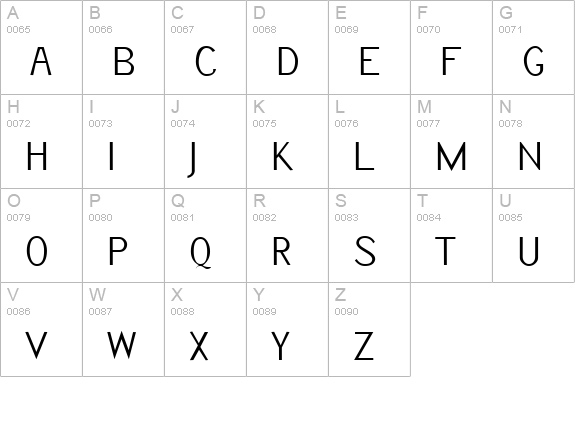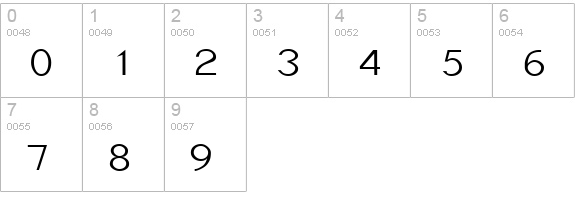
Paresis Font Details
Paresis font is a mesmerizing display font that effortlessly blends modern aesthetics with a touch of elegance. This font exudes confidence, making it the perfect choice for projects that require a bold and powerful statement. With its unique and intricate letterforms, Paresis font captures attention and leaves a lasting impression. Each character is meticulously crafted, showcasing the designer's attention to detail and commitment to quality. What sets Paresis font apart is its versatility. It can be used across a wide range of design projects, including logos, branding, headlines, posters, and more. Its strong presence and clean lines make it suitable for both digital and print applications. One of the best features of Paresis font is that it is completely free. Yes, you read that right! This remarkable font is freely available to download at FontsMarket.com. It's a fantastic opportunity for designers, creatives, and enthusiasts to enhance their projects without any cost. Whether you are a professional designer looking for a font that will elevate your work or a hobbyist searching for a unique typeface, Paresis font is a must-have. Its bold and captivating design, combined with the convenience of being freely accessible, make it an irresistible choice for any project. Don't miss out on the chance to add Paresis font to your collection. Download it today from FontsMarket.com and unlock endless possibilities for your creative endeavors.